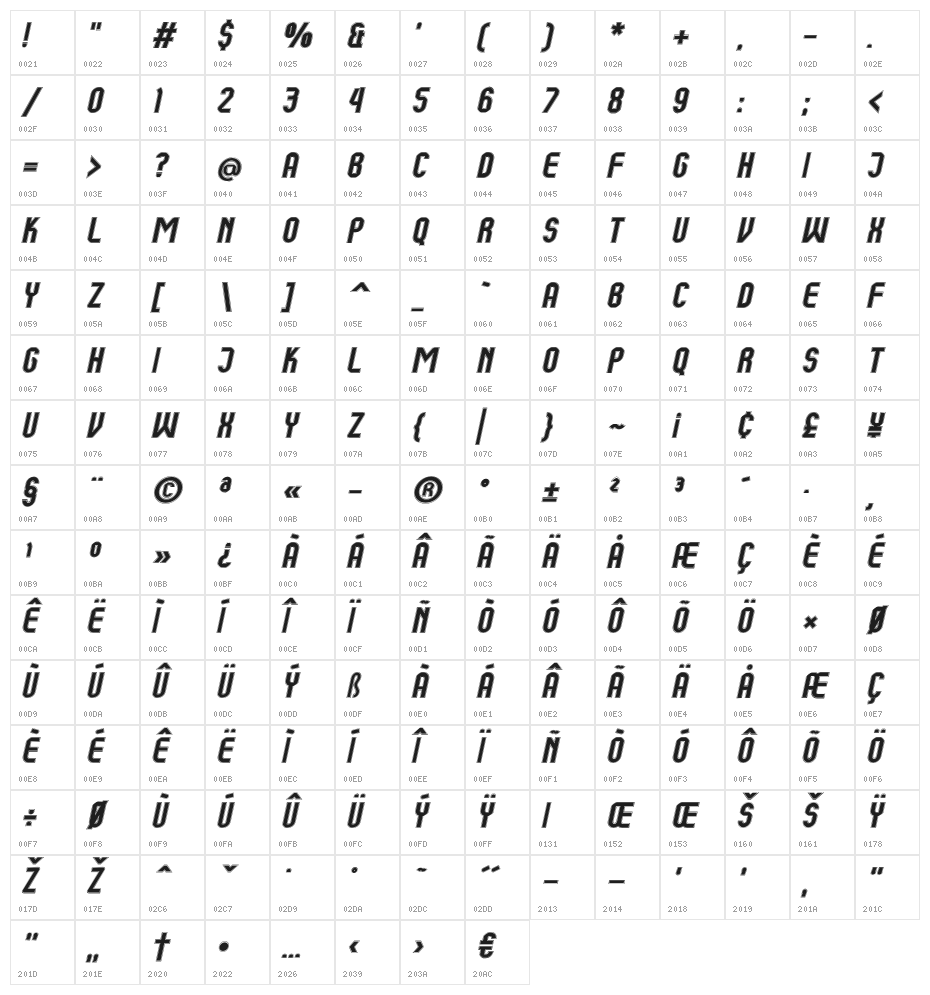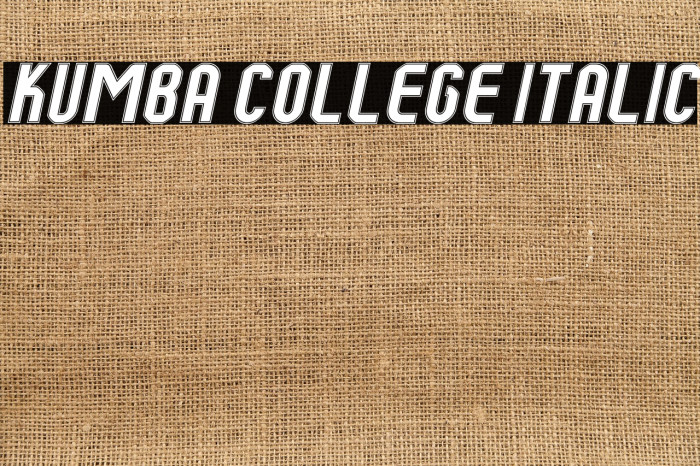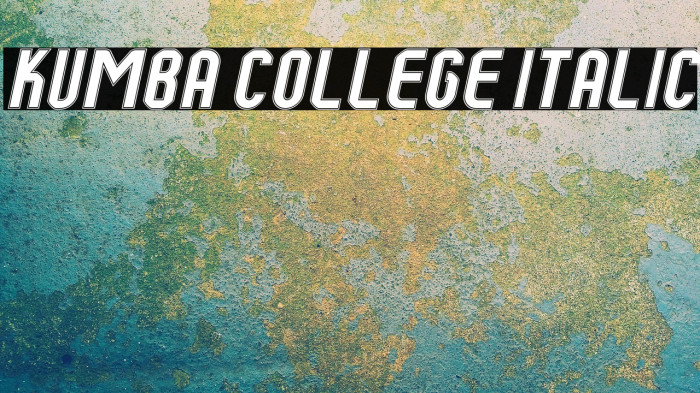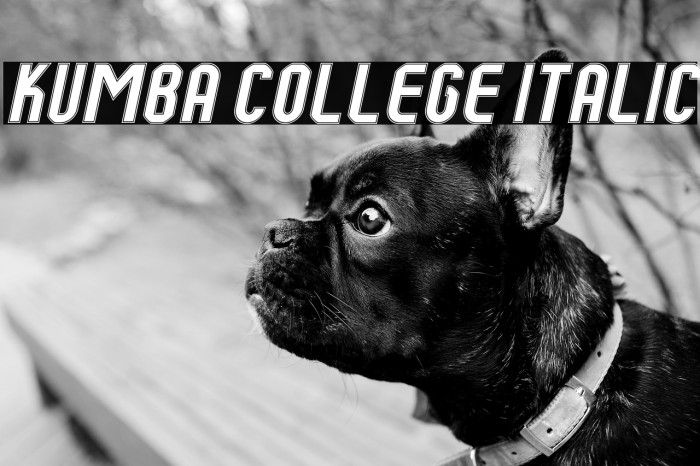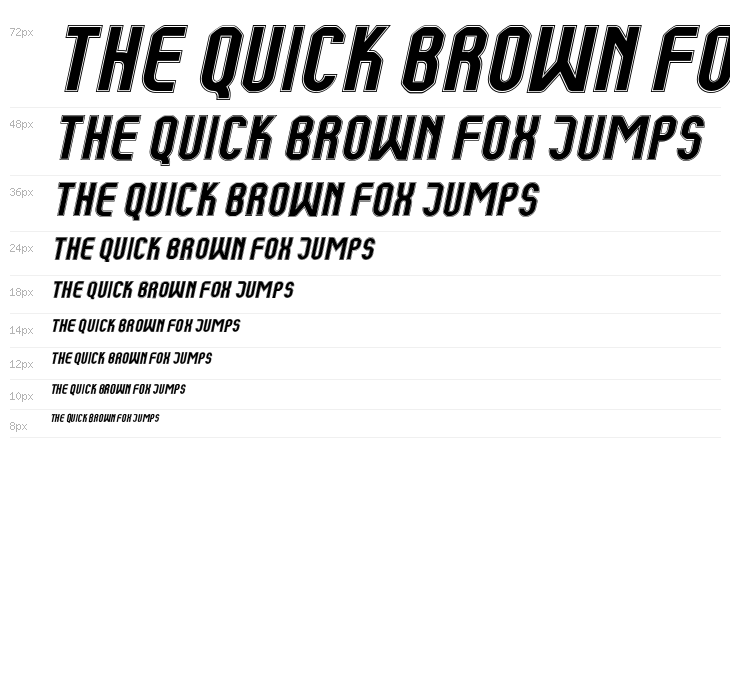
Kumba College Italic Font
Kumba College Italic Description
This font features a bold and dynamic style with a strong presence. The letters are italicized, giving a sense of motion and energy. The characters have a blocky, geometric structure with sharp angles and clean lines, creating a modern and assertive look. The boldness of the font is accentuated by the thick strokes and the slight slant, which adds a touch of sophistication. The numbers and special characters maintain the same bold and italicized style, ensuring consistency across all elements. This font is ideal for projects that require a strong visual impact and a contemporary feel.
Proposed ProjectsIdeal for sports branding, posters, headlines, and dynamic logos.